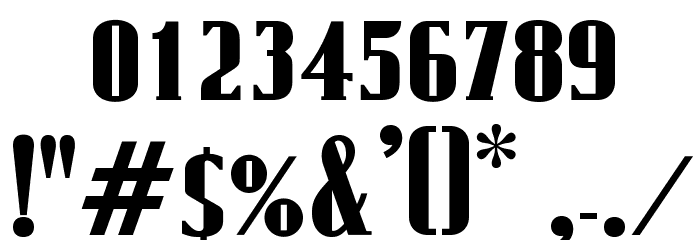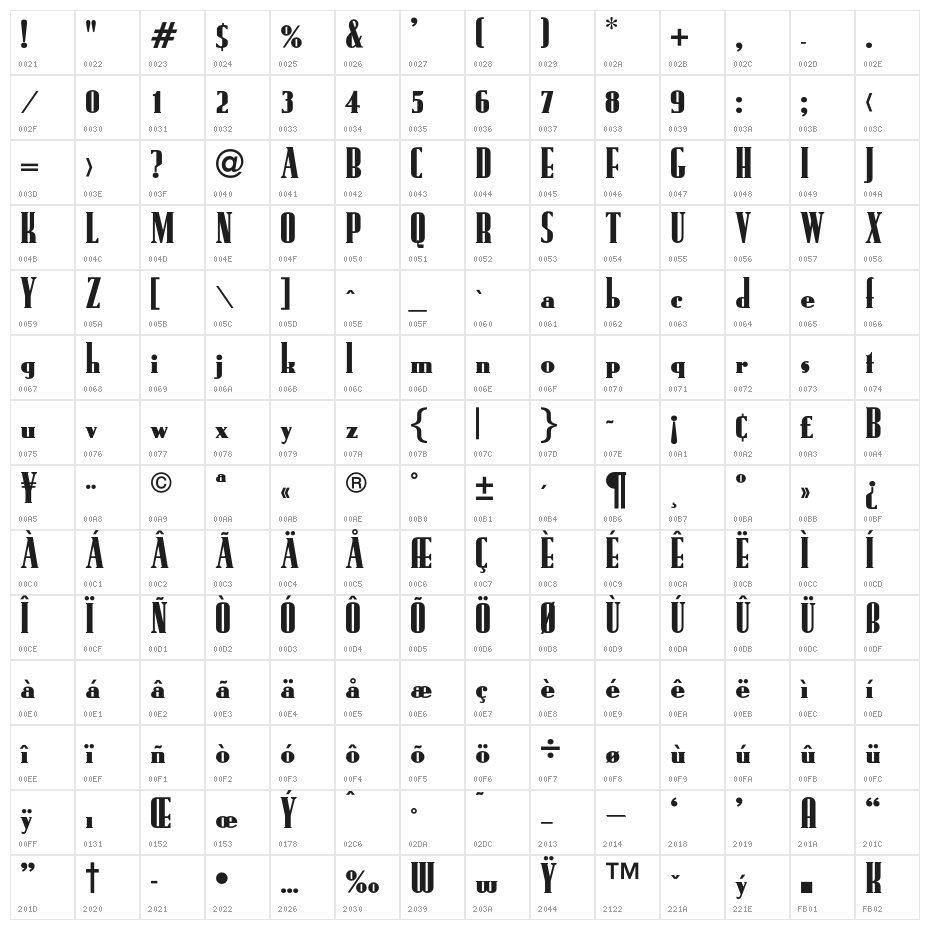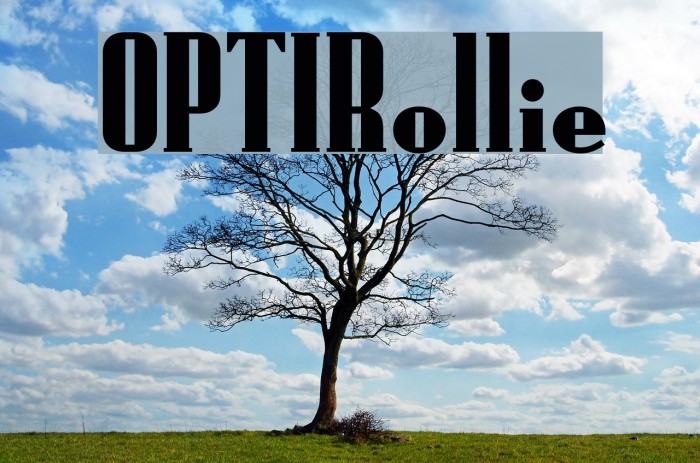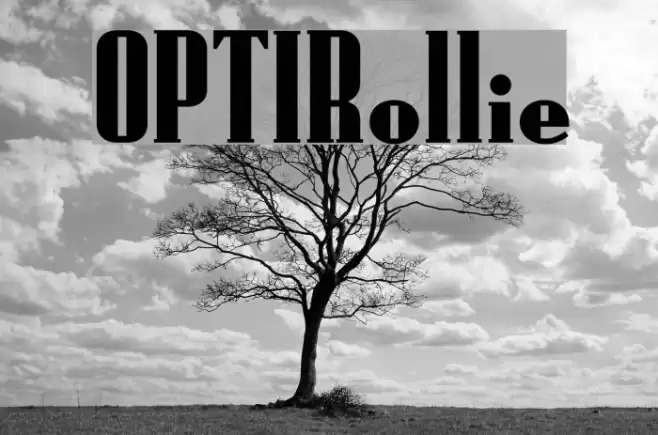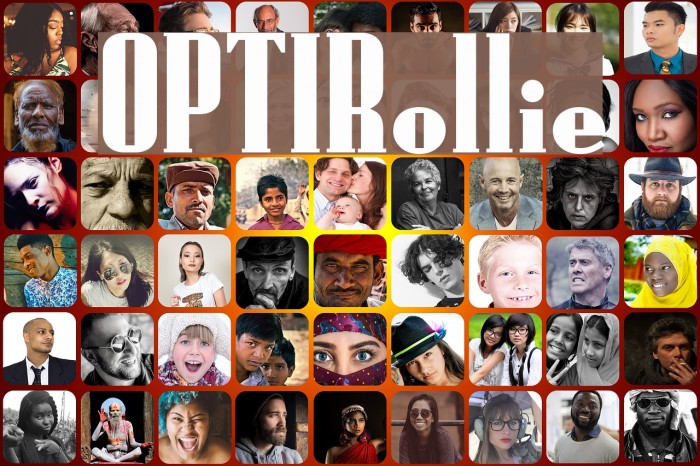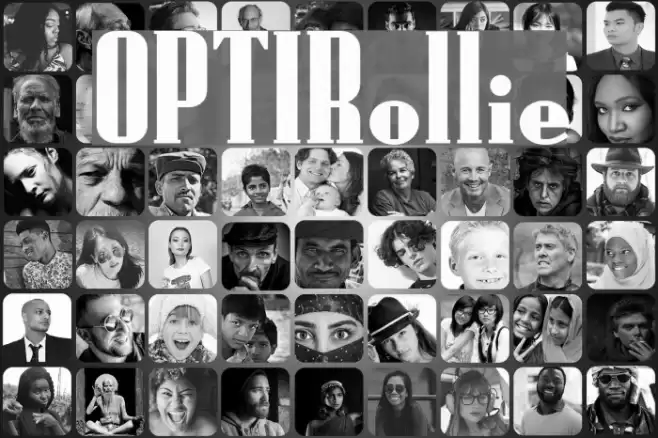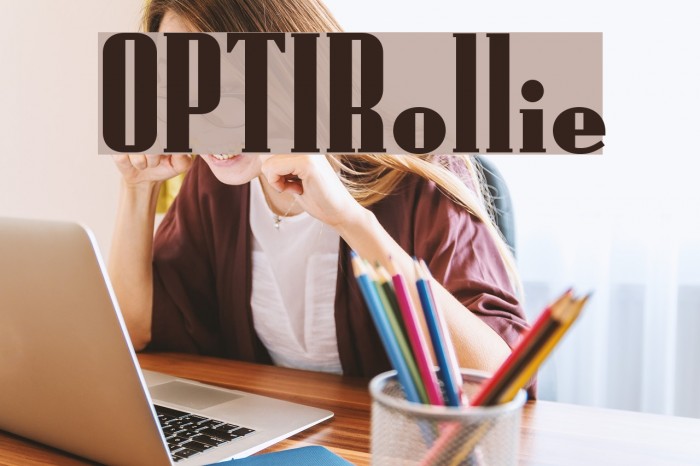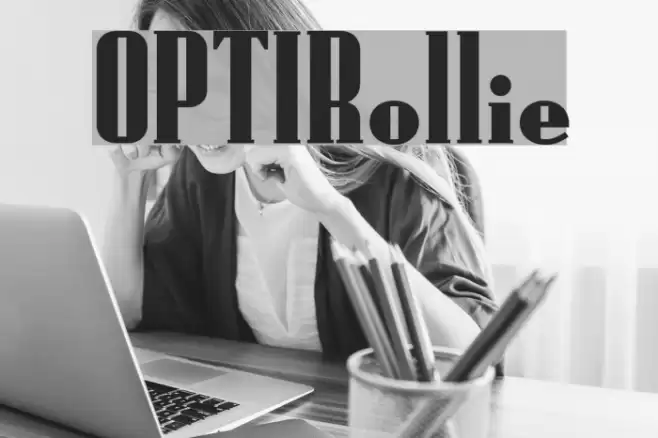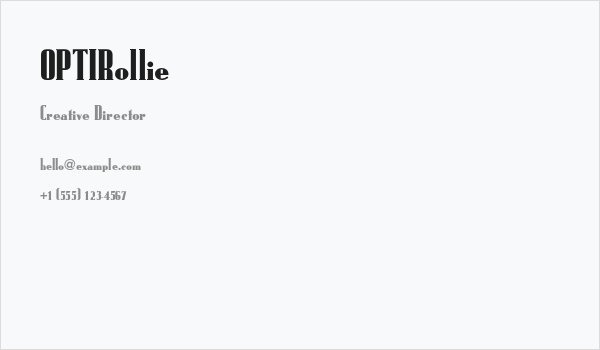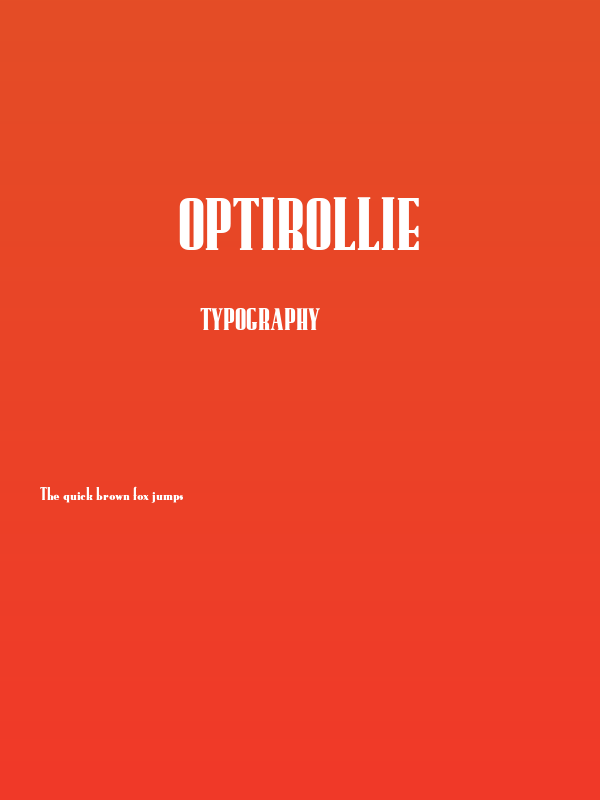
OPTIRollie Font
OPTIRollie Description
This font features a bold and striking design with high contrast between thick and thin strokes, giving it a dramatic and impactful appearance. The uppercase letters are tall and narrow, with sharp serifs that add a touch of elegance and authority. The lowercase letters maintain a consistent style, with rounded forms that balance the sharpness of the serifs. Numbers are bold and clear, making them easily readable. The special characters are designed to match the overall aesthetic, ensuring a cohesive look across all text elements. This font is well-suited for projects that require a strong visual presence and a touch of sophistication.